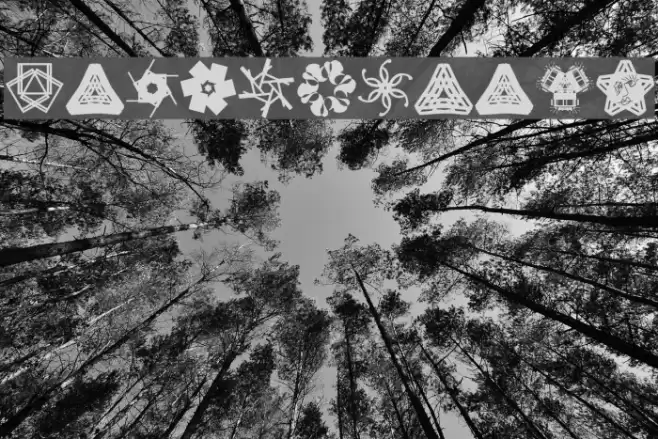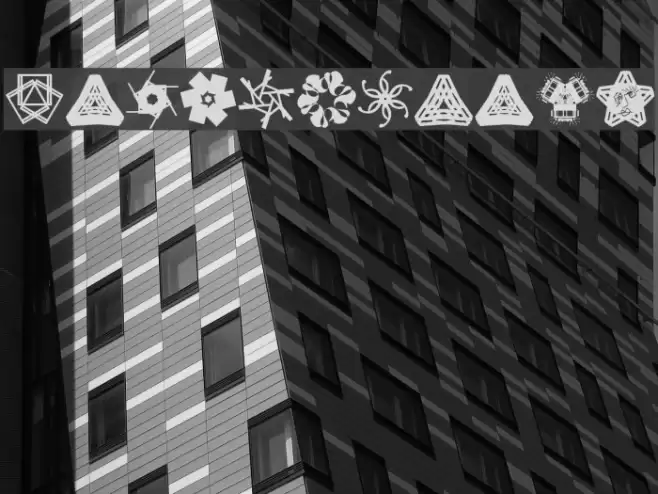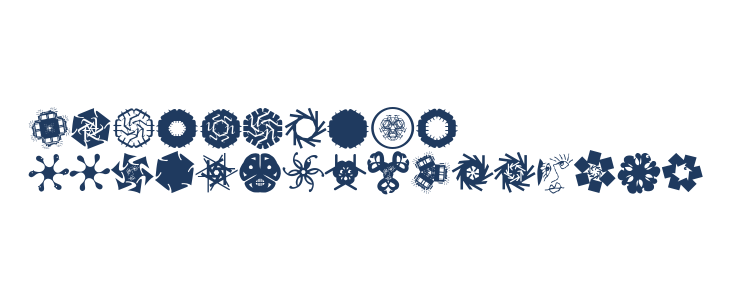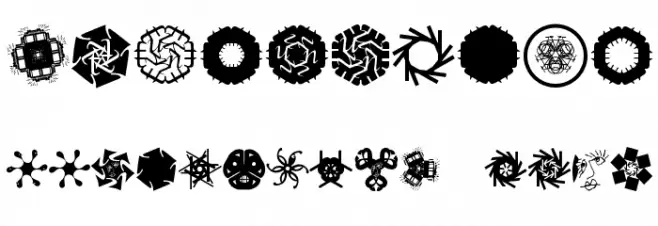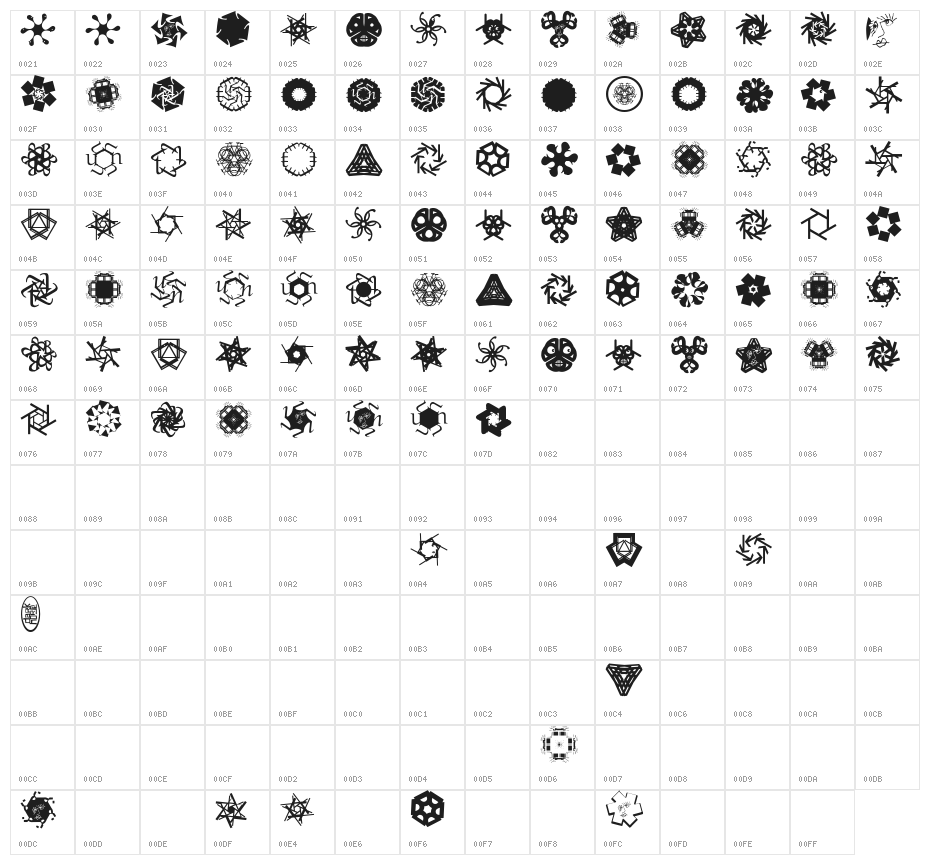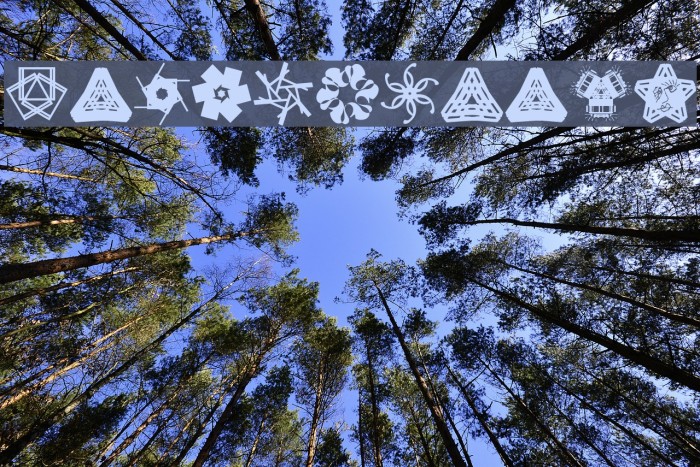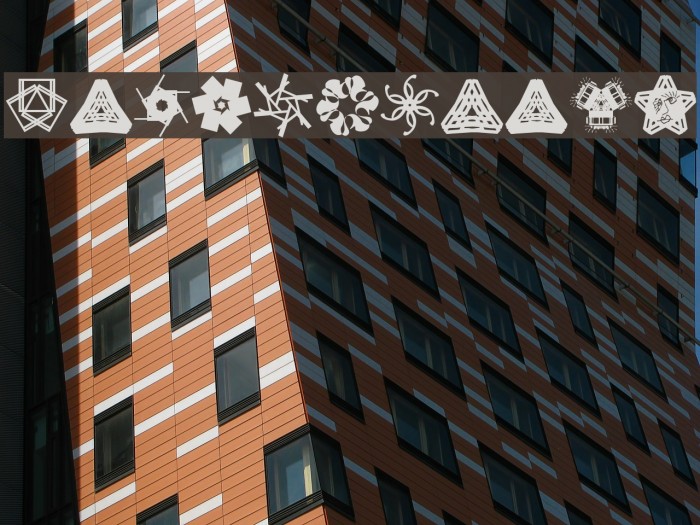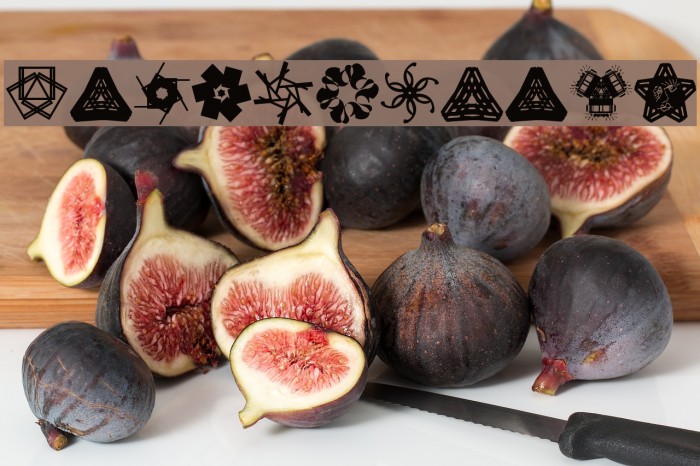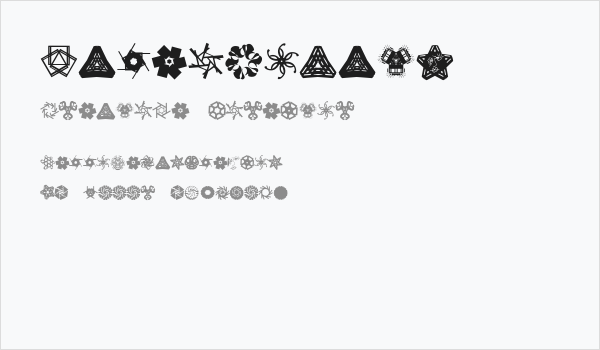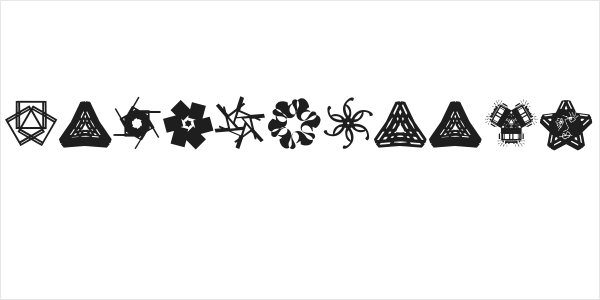
KaleidoBats Font
KaleidoBats Description
This is a decorative symbol set featuring a variety of intricate, kaleidoscope-inspired designs. Each character is a unique geometric pattern, ranging from star shapes to circular motifs, often with a symmetrical and repetitive nature. The designs are bold and complex, making them suitable for artistic and creative projects. The symbols are highly detailed, with some incorporating elements that resemble abstract art or mandalas. The overall style is modern and artistic, with a focus on visual impact and creativity.
A decorative set of intricate, kaleidoscope-inspired geometric symbols from Uncategorized fonts.
- Proposed Projects: Ideal for use in graphic design projects, artistic compositions, digital art, and decorative elements in print media.
- Use Case: Logos, Artistic designs, Decorative elements